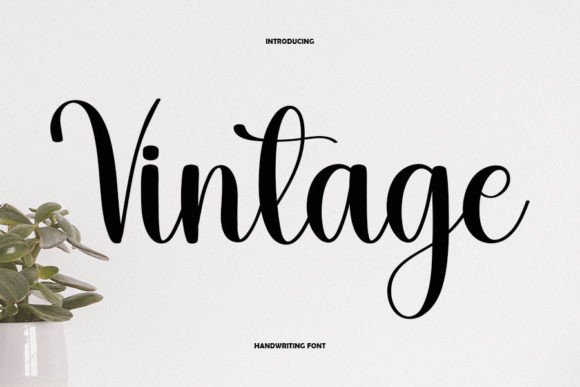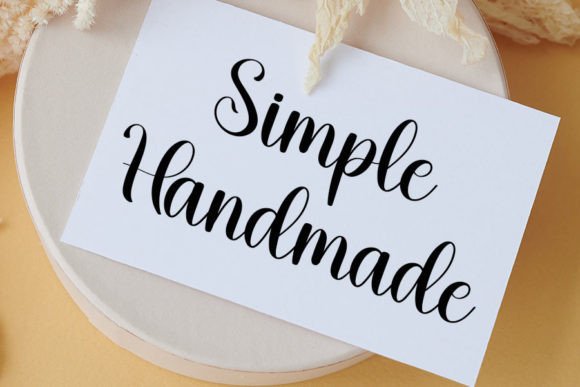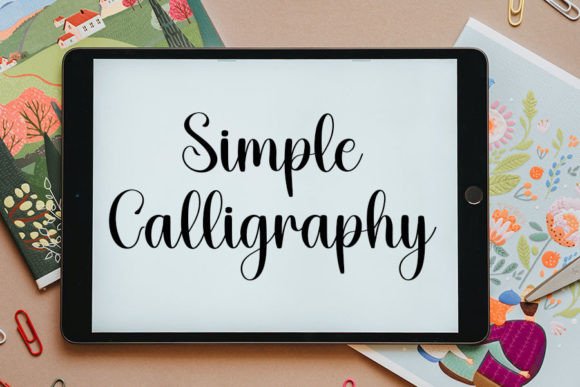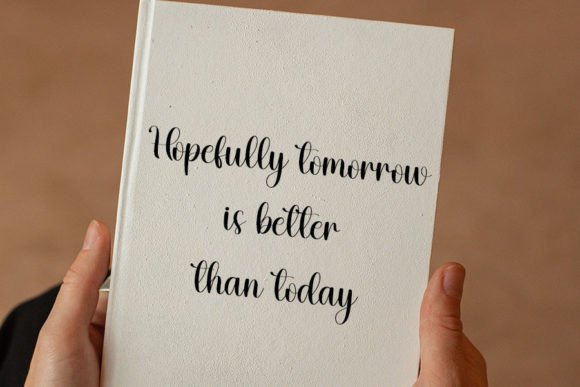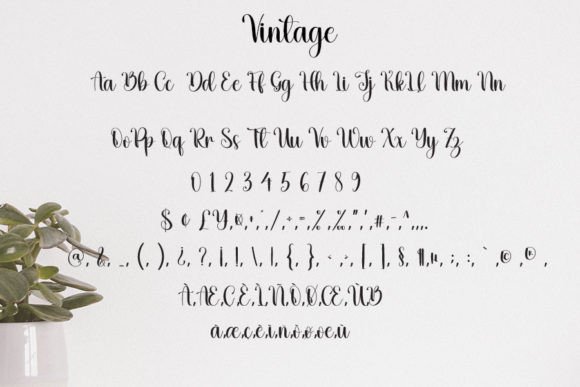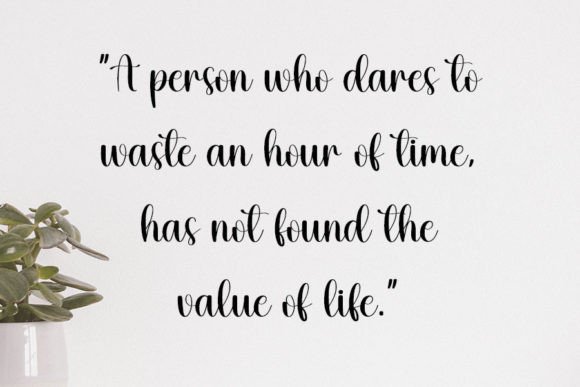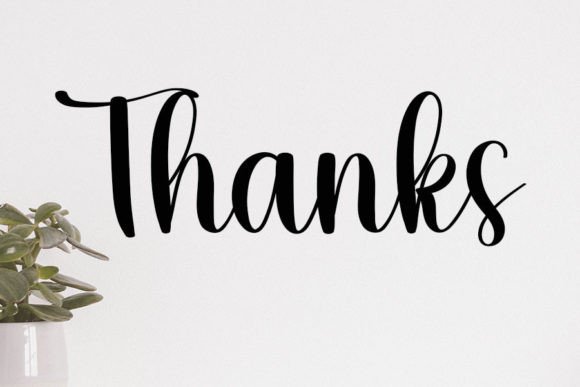
Vintage Font
About Vintage Font
Vintage font is a simple yet charming handwritten typeface designed to bring a warm and approachable feel to your creative projects. When you download Vintage font, you unlock a versatile and friendly style that can quickly become your favorite choice for various design needs. This font’s clean and natural appearance makes it suitable for both professional and casual uses.
Ideal for Craft Projects and DIY Creations
Vintage font adds a personal, handcrafted touch to all your craft projects. Whether you are designing unique handmade gifts, personalized cards, or artistic DIY items, downloading Vintage font gives your creations a warm and authentic handwritten look. This font will make your crafts feel heartfelt and special.
Perfect for Digital Design and Presentations
With clear and readable characters, Vintagefont works beautifully in digital design. It enhances social media graphics, website content, and presentation slides by adding a friendly and engaging style. Download Vintagefont to give your digital projects a classic yet inviting touch.
Great for Greeting Cards and Invitations
Vintagefont is the perfect choice for greeting cards, invitations, and other personalized stationery. Its simple and friendly style makes your messages feel genuine and intimate. By downloading Vintagefont, you can easily create heartfelt designs that resonate with your audience.